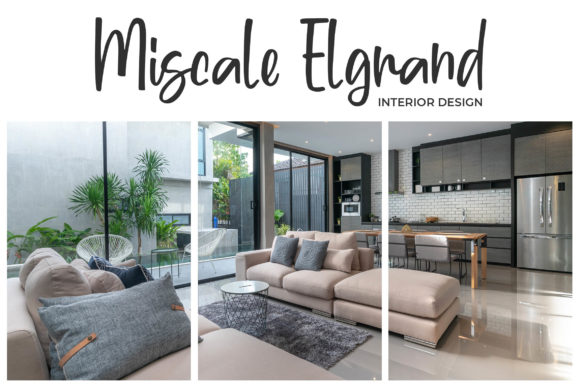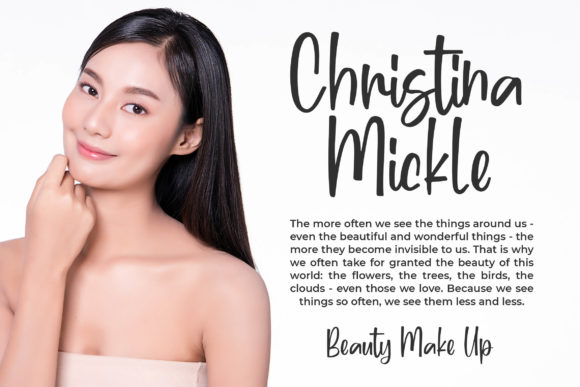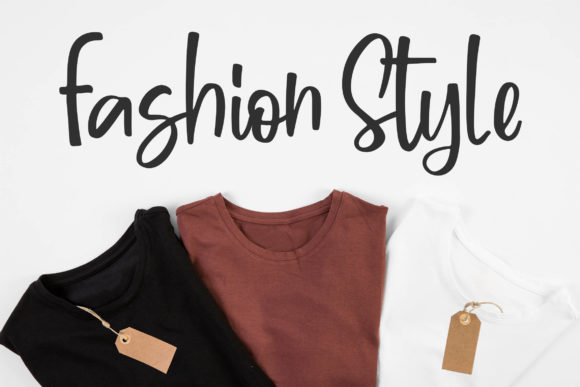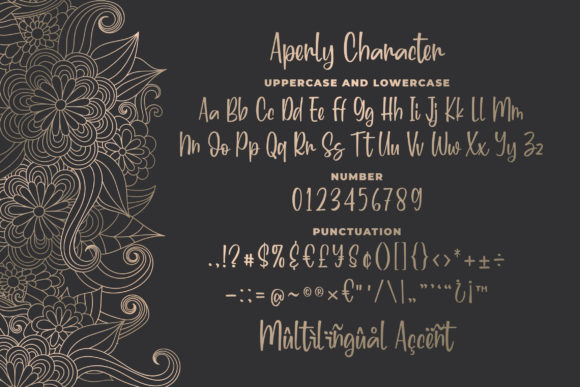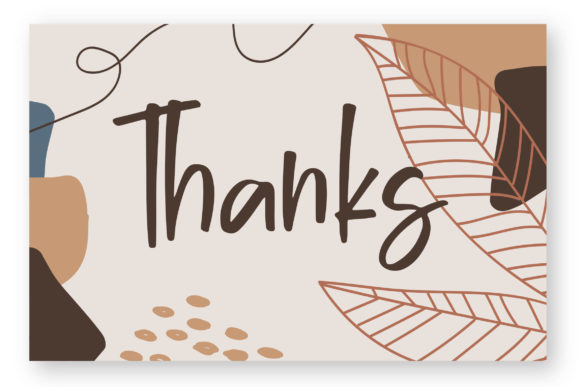
Aperly Font: The Ultimate Playful Script for Fashion and Design
Aperly is a unique and exciting playful script that’s making waves in the design world. With its bold and stylish aesthetic, this font is perfect for designers and crafters looking to add a touch of fashion and whimsy to their projects. In this article, we’ll dive into the world of Aperly Font, exploring its features, uses, and benefits for designers and crafters alike.
The Story Behind Aperly Font
Aperly Font is a carefully crafted script that’s inspired by the world of fashion. Its creator aimed to design a font that’s both stylish and fun, with a playful twist that’s sure to capture attention. The result is a font that’s perfect for projects that require a touch of elegance and sophistication, yet still want to convey a sense of playfulness and creativity.
Key Features of Aperly Font
So, what makes Aperly Font so special? Here are some of its key features:
- Unique and playful script: Aperly Font boasts a distinctive and exciting script that’s sure to stand out in any design project.
- Fashion-inspired: With its bold and stylish aesthetic, Aperly Font is perfect for fashion-related projects, from branding and advertising to packaging and editorial design.
- Highly legible: Despite its playful nature, Aperly Font remains highly legible, making it suitable for use in a variety of applications, from headings and titles to body text.
- Versatile: Aperly Font can be used in a range of design projects, from digital media and web design to print materials and craft projects.
Uses for Aperly Font
Aperly Font is an incredibly versatile font that can be used in a wide range of design projects. Here are some ideas to get you started:
- Fashion branding and advertising: Use Aperly Font to create eye-catching logos, ads, and marketing materials that showcase your brand’s personality and style.
- Editorial design: Add a touch of elegance and sophistication to your editorial designs, from magazine covers and articles to blog posts and social media graphics.
- Packaging design: Make your product packaging stand out with Aperly Font, perfect for labels, tags, and other packaging materials.
- Craft projects: Aperly Font is also perfect for crafters, from scrapbooking and card making to DIY signs and home decor projects.
So, what are the benefits of using Aperly Font for designers and crafters? Here are just a few:
- Adds a touch of personality: Aperly Font allows designers and crafters to add a touch of personality and whimsy to their projects, setting them apart from more traditional fonts.
- Easy to use: Aperly Font is highly legible and easy to use, making it perfect for designers and crafters of all skill levels.
- Increases creativity: With its unique and playful script, Aperly Font can help inspire creativity and imagination in designers and crafters.
In conclusion, Aperly Font is a unique and exciting playful script that’s perfect for designers and crafters looking to add a touch of fashion and whimsy to their projects. With its bold and stylish aesthetic, highly legible design, and versatility, Aperly Font is an excellent choice for a wide range of design applications. Whether you’re a professional designer or a crafty DIY enthusiast, Aperly Font is sure to inspire your creativity and take your projects to the next level.